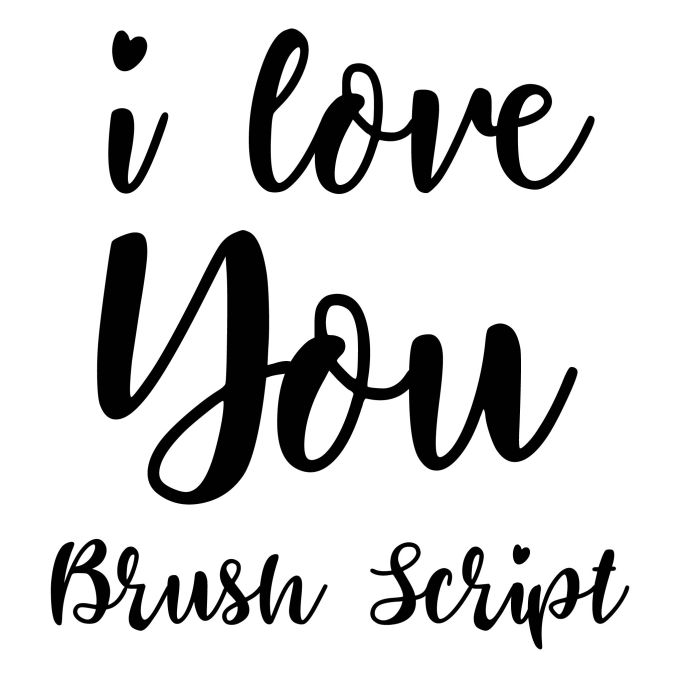
I Love You is the brush script version of Heart Script font, cute for svg Valentine’s Day crafts, projects, displays, cards, signs, invitations, and personalization.